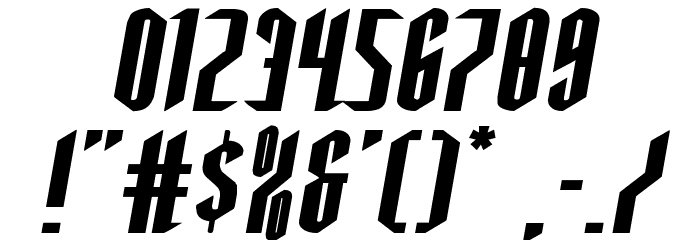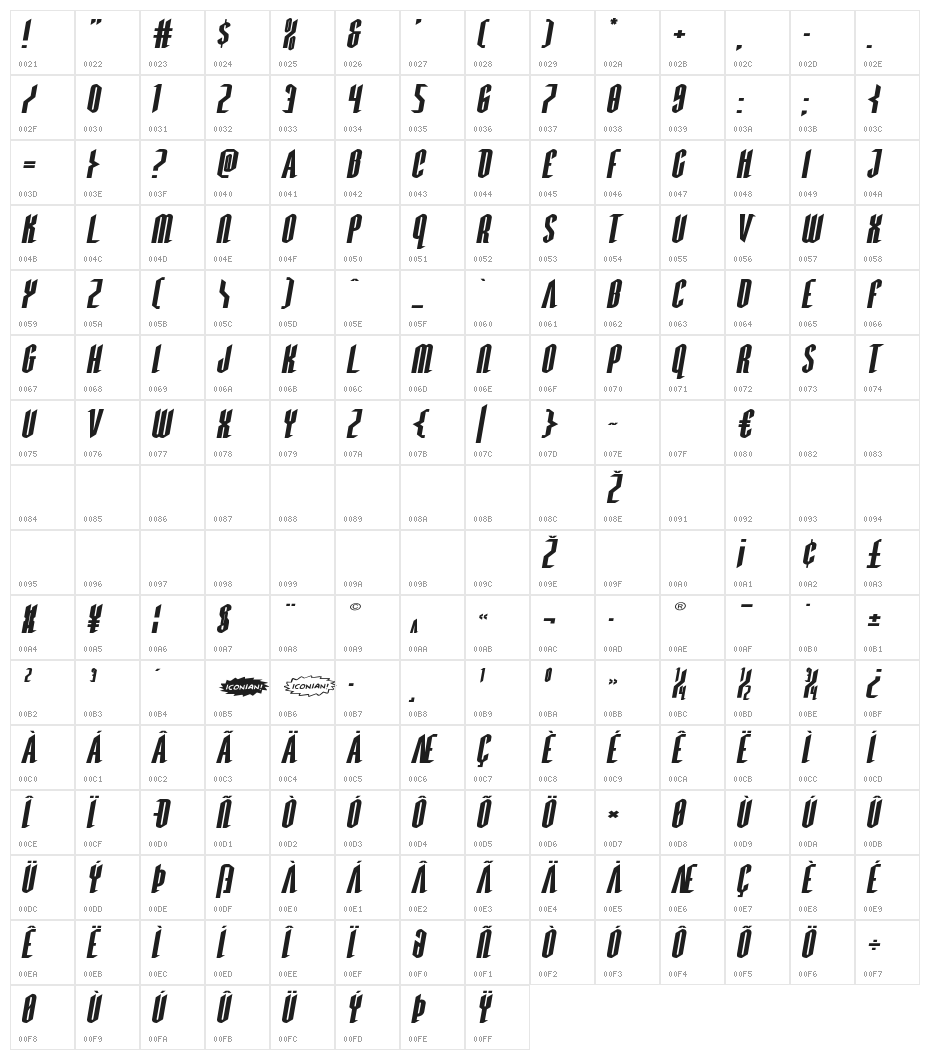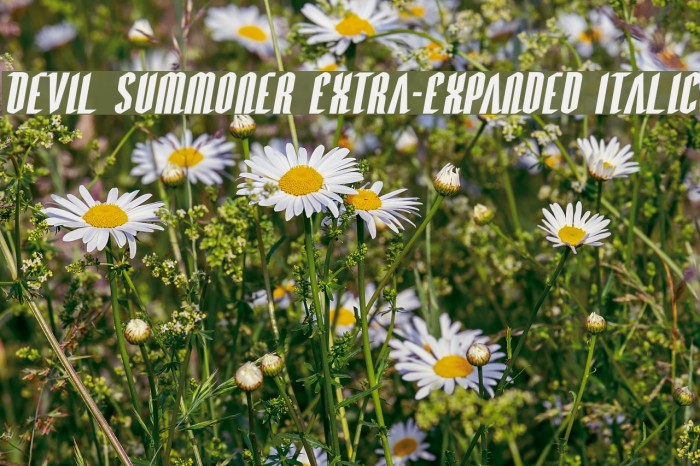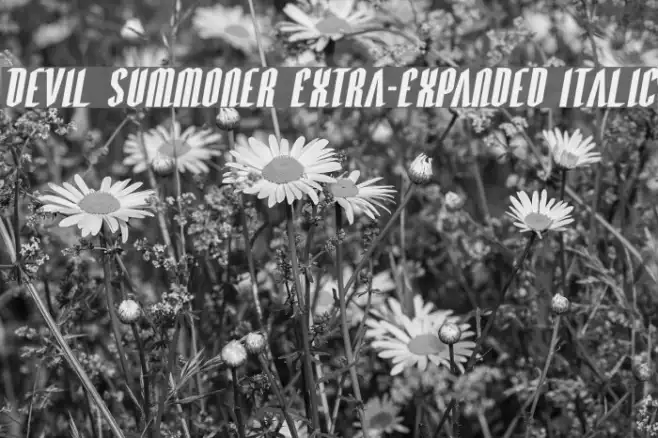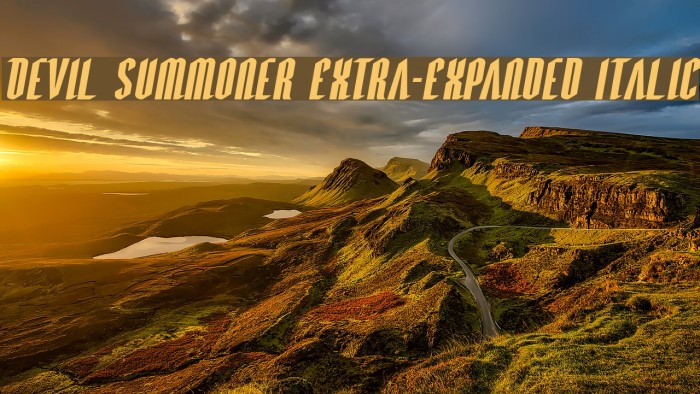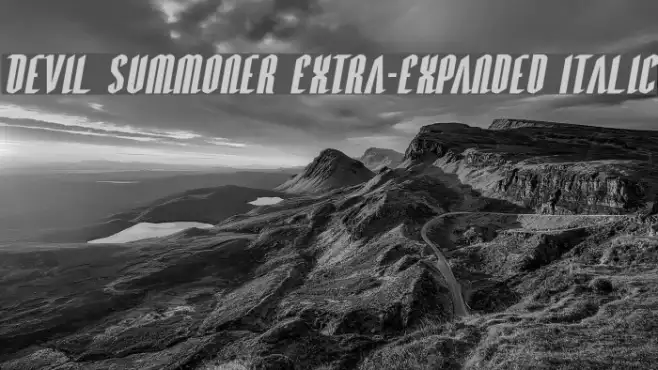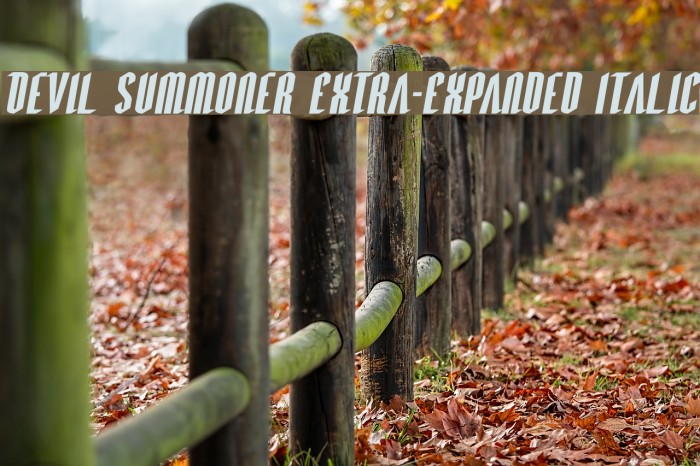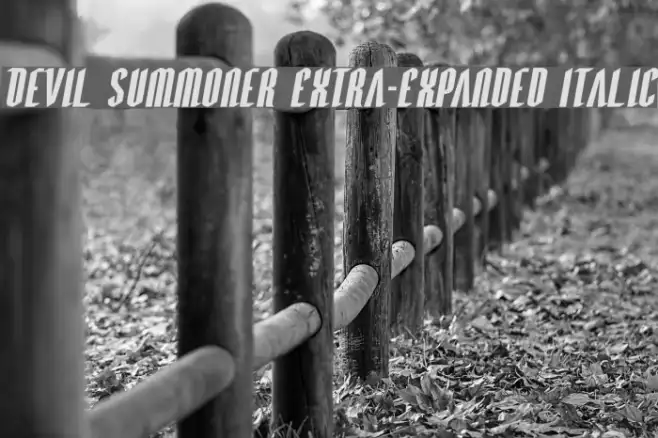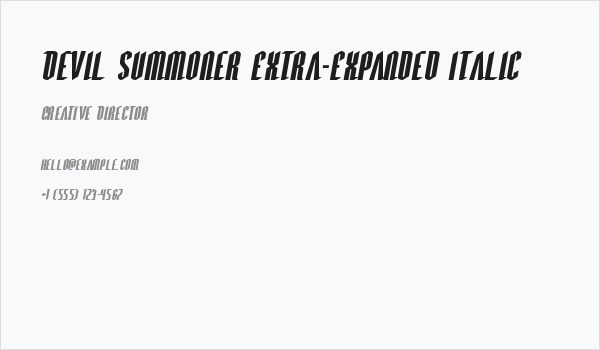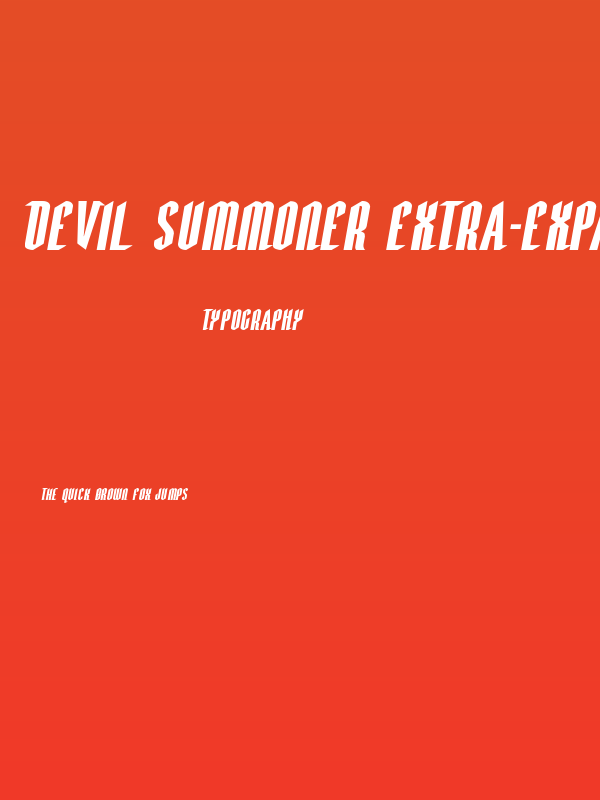
Devil Summoner Extra-Expanded Italic Font
Devil Summoner Extra-Expanded Italic Description
This font features a bold and dynamic style with a distinctly modern flair. The characters are sharply angled, giving them a sense of motion and energy. The strokes are thick and consistent, creating a strong visual impact. The italicized slant adds to the dynamic feel, while the expanded width ensures readability. This font is ideal for making a bold statement, with its striking appearance and high contrast between the thick strokes and the negative space.
| Proposed Projects | Perfect for branding, poster design, video game titles, and any project requiring a bold, impactful typeface. |